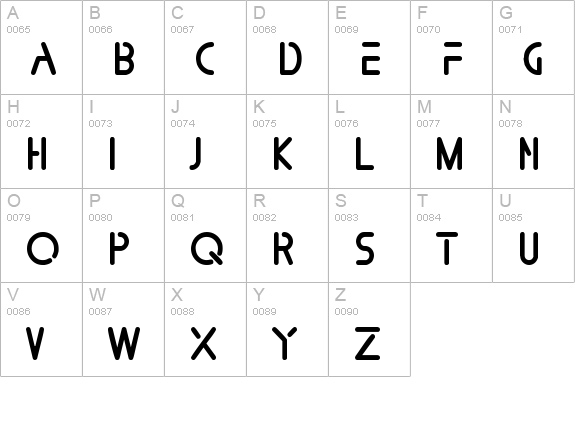
Introducing Tomorrow People font, a captivating and versatile typeface that is sure to elevate your designs to new heights. With its bold and modern letterforms, this font exudes confidence and a contemporary edge, making it perfect for a variety of creative projects. But what sets Tomorrow People font apart from the rest? It's the fact that it is freely available to download at FontsMarket.com. Yes, you read that right - this incredible font can be yours without spending a dime! We believe that great design should be accessible to all, and that's why we're offering Tomorrow People font as a free download. Whether you're a professional graphic designer, a budding artist, or simply someone who appreciates beautiful typography, Tomorrow People font is a must-have in your font collection. Its clean and legible characters make it suitable for everything from logos and branding to posters, websites, and more. With a wide range of weights and styles, Tomorrow People font offers endless possibilities for your creative endeavors. From the sleek and minimal Regular style to the bold and impactful Bold style, you'll find the perfect variation to suit your project's needs. So don't wait any longer - unleash your creativity and download Tomorrow People font for free at FontsMarket.com. Elevate your designs, make a statement, and leave a lasting impression with this stunning and versatile typeface. The future of design is here, and it's free for you to explore.